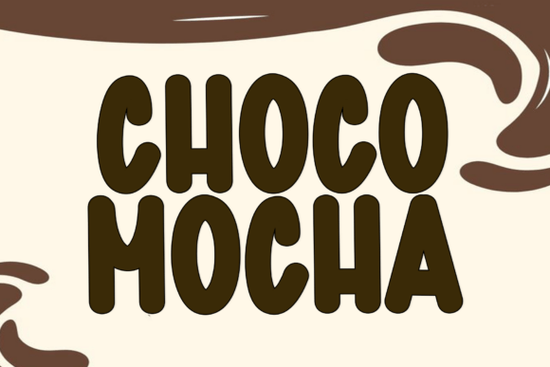
Choco Mocha Font is a standout choice for anyone looking to add a touch of elegance and sophistication to their design projects. This modern handwritten script font features smooth, flowing curves that make it ideal for a variety of creative applications. Whether you're working on personal branding, wedding stationery, or editorial designs, Choco Mocha offers a refined and luxurious feel that sets it apart from other fonts.
The versatility of Choco Mocha makes it a valuable addition to any designer's toolkit. Its graceful, elongated strokes give it a signature look that feels both professional and authentic. This font works particularly well for luxury branding, where the visual appeal of typography can make a big difference. It also pairs nicely with other fonts, allowing for creative combinations that enhance the overall aesthetic of a design.
What Makes Choco Mocha Stand Out?
One of the key features of Choco Mocha is its natural flow. Unlike some scripted fonts that feel forced or artificial, this one has a fluidity that mimics real handwriting. This makes it perfect for projects that require a personal, handcrafted touch. The font’s generous curves and sweeping lines add a sense of movement and elegance, which can elevate the visual impact of any design.
Another advantage of Choco Mocha is its readability. While it has a decorative style, it remains legible even at smaller sizes. This makes it suitable for use in a wide range of formats, from print materials to digital assets. Whether you’re designing a logo, a social media post, or a website header, this font can help you achieve a polished and professional look.
Best Uses for Choco Mocha Font
Choco Mocha is especially well-suited for projects that emphasize luxury and refinement. It’s a popular choice for wedding invitations, where the font’s elegant style can complement the overall theme. It also works well for photography watermarks, adding a subtle yet stylish touch to images without distracting from the main subject.
For small businesses and print-on-demand sellers, this font can be used to create custom products that stand out. From t-shirts and mugs to greeting cards and packaging, Choco Mocha adds a unique flair that can attract attention and enhance brand identity. Its versatility means it can be adapted to various styles and themes, making it a flexible option for different creative needs.
How to Use Choco Mocha Effectively
To get the most out of Choco Mocha, consider pairing it with complementary fonts. For example, using it alongside a clean sans-serif font can create a balanced and visually appealing layout. This contrast helps draw attention to the script font while maintaining readability and structure.
When using Choco Mocha in design software, make sure to adjust the spacing and sizing as needed. Some script fonts may require extra kerning to look their best, so take the time to fine-tune the appearance. Testing the font in different sizes and backgrounds can also help you see how it performs in real-world scenarios.
For those new to working with script fonts, Choco Mocha is a great starting point. Its natural flow and elegant style make it accessible for both beginners and experienced designers. As you become more familiar with its characteristics, you’ll likely find new ways to incorporate it into your work.
Whether you're a designer, crafter, or small business owner, Choco Mocha Font offers a stylish and versatile solution for a wide range of projects. Its combination of beauty and functionality makes it a valuable asset in any creative workflow.